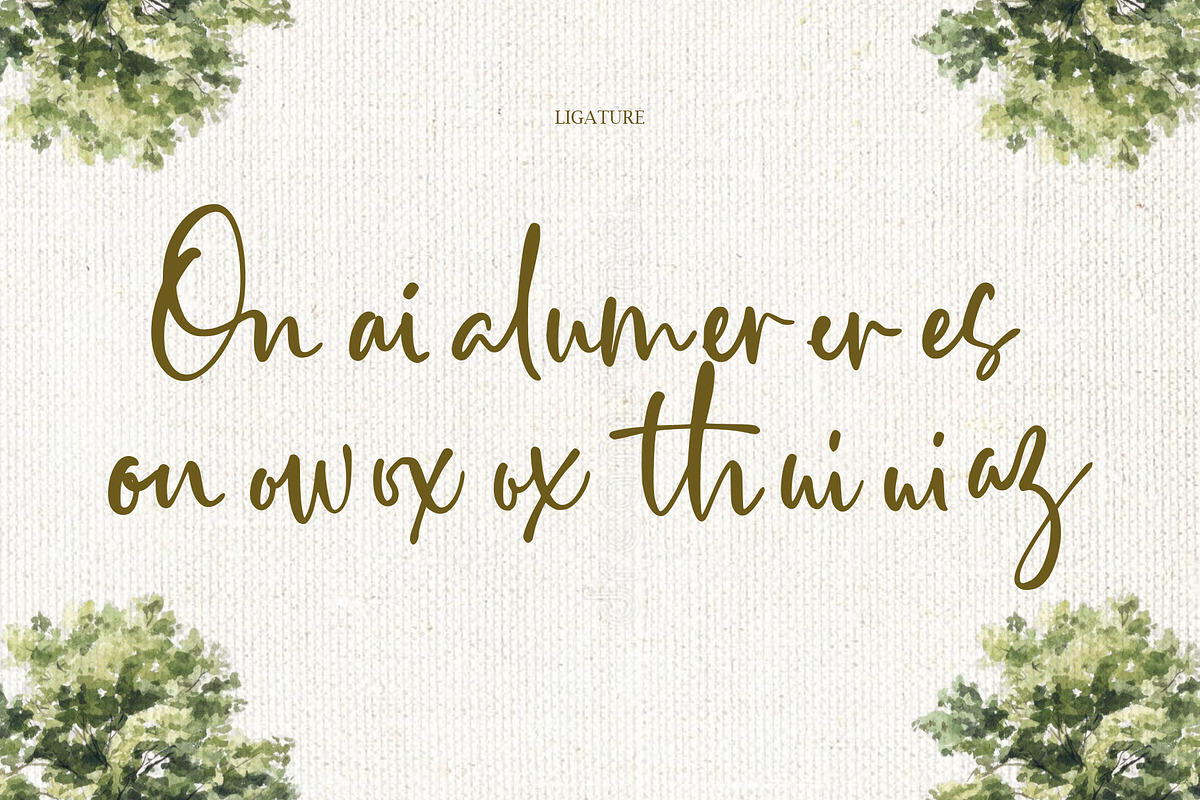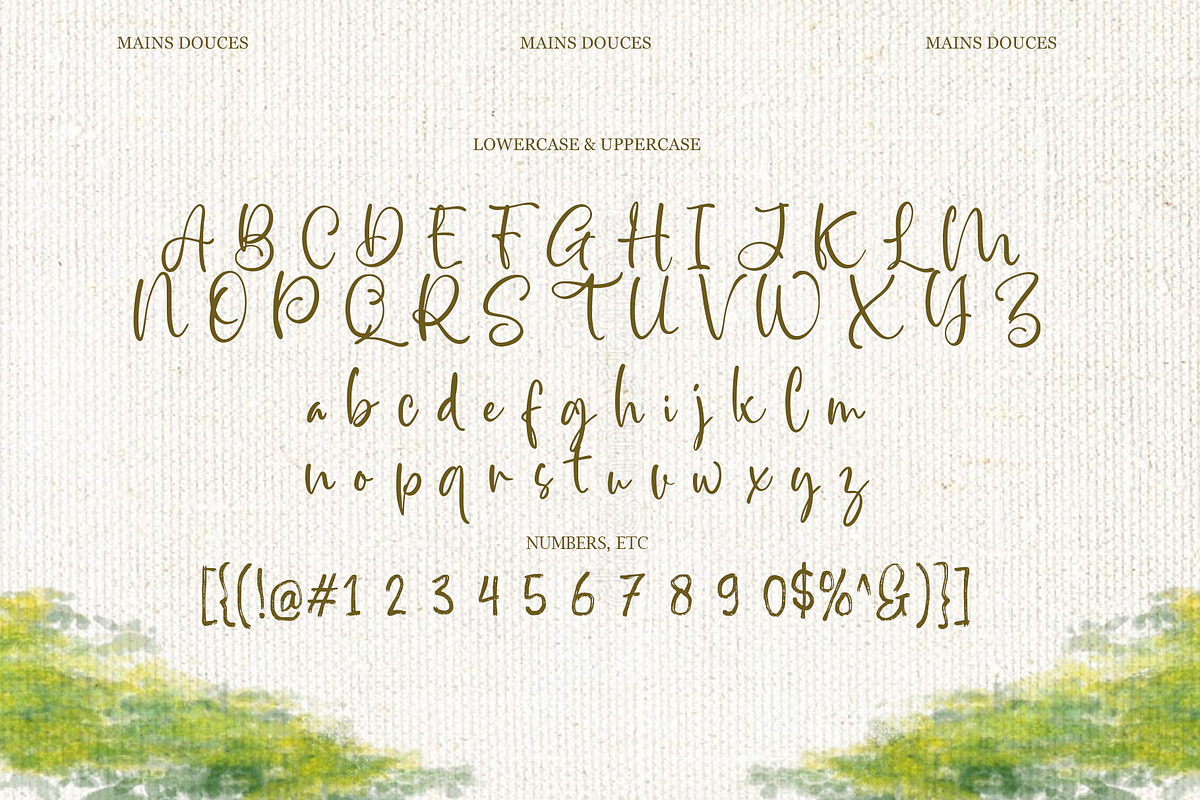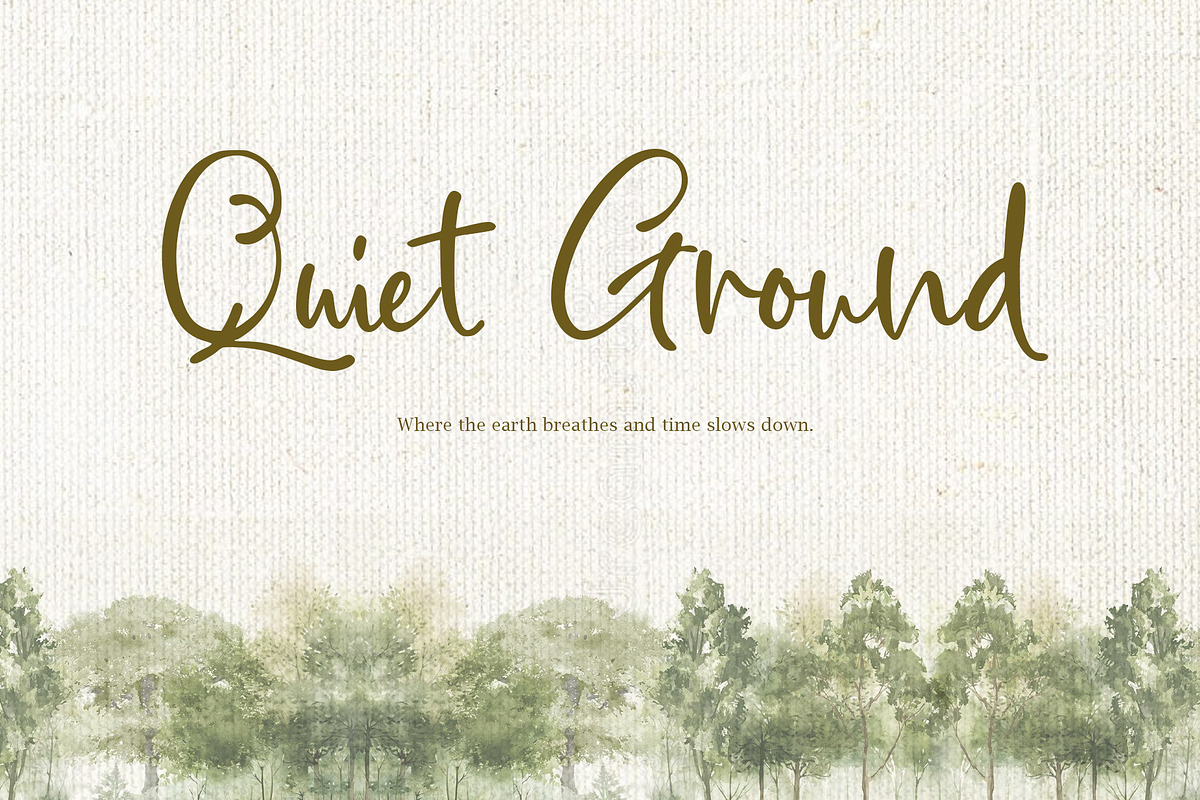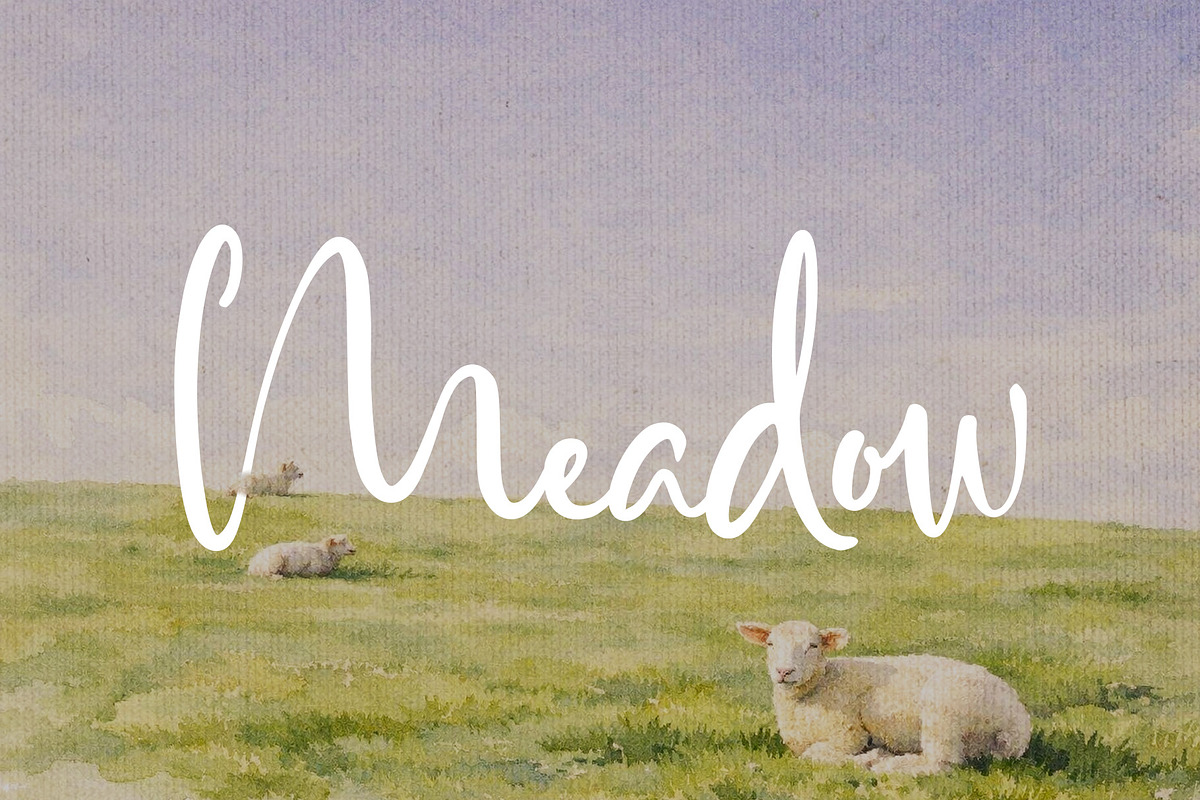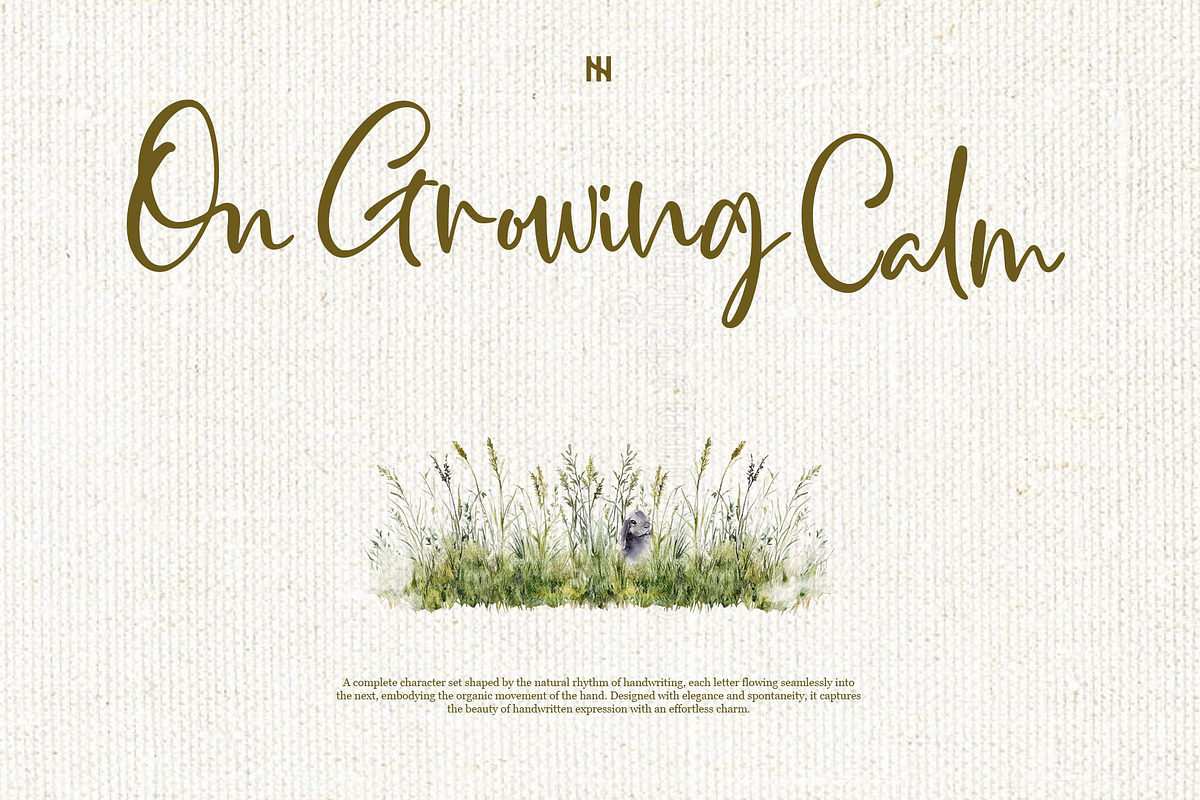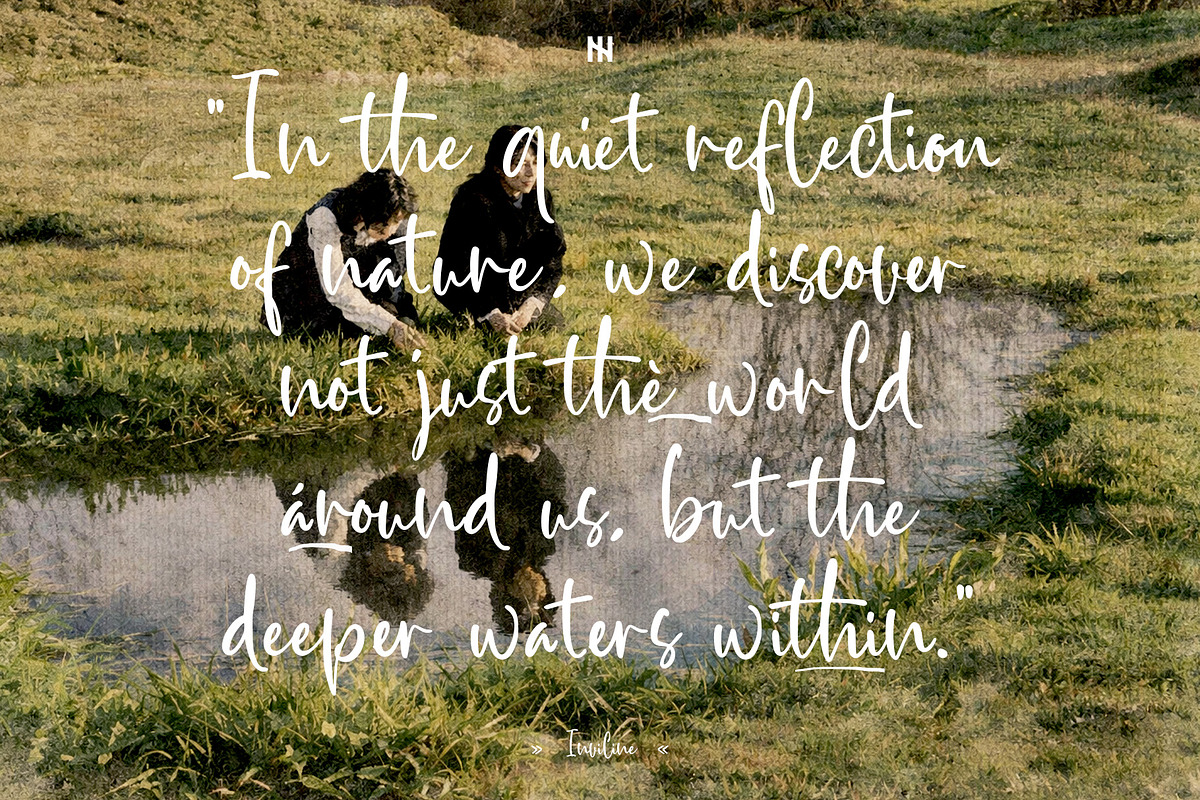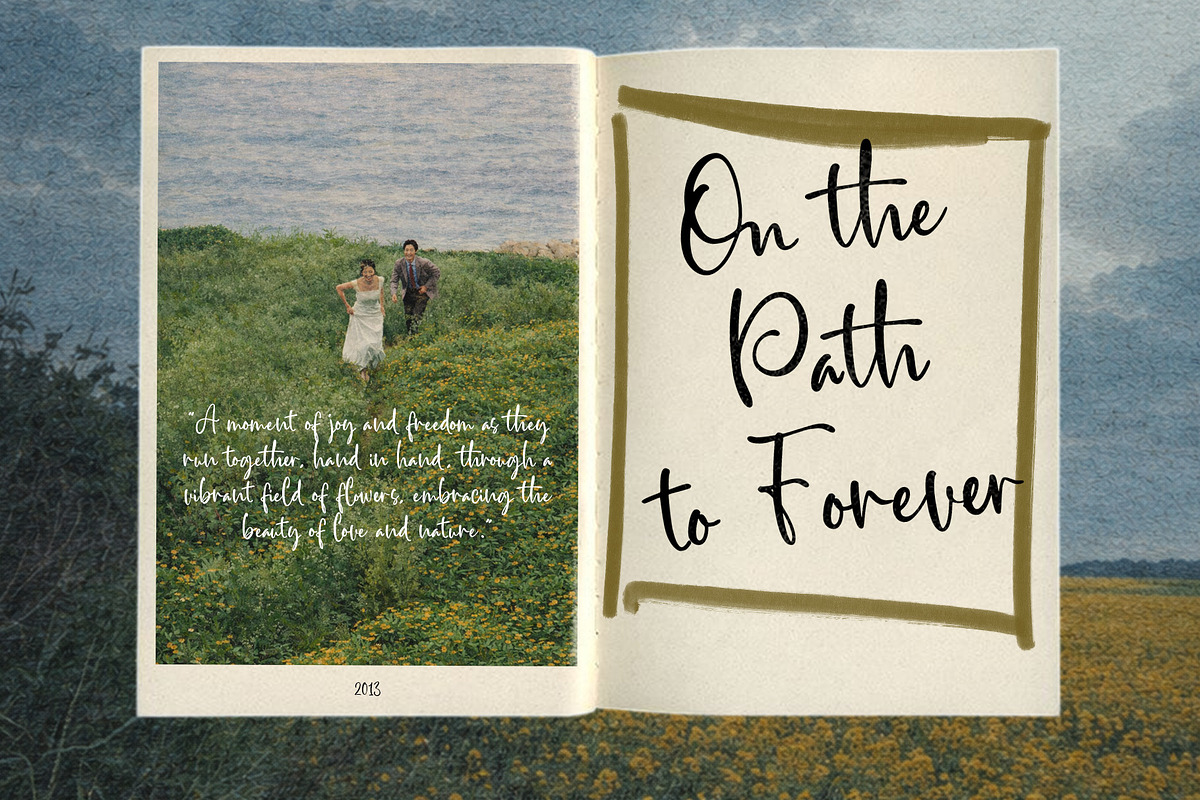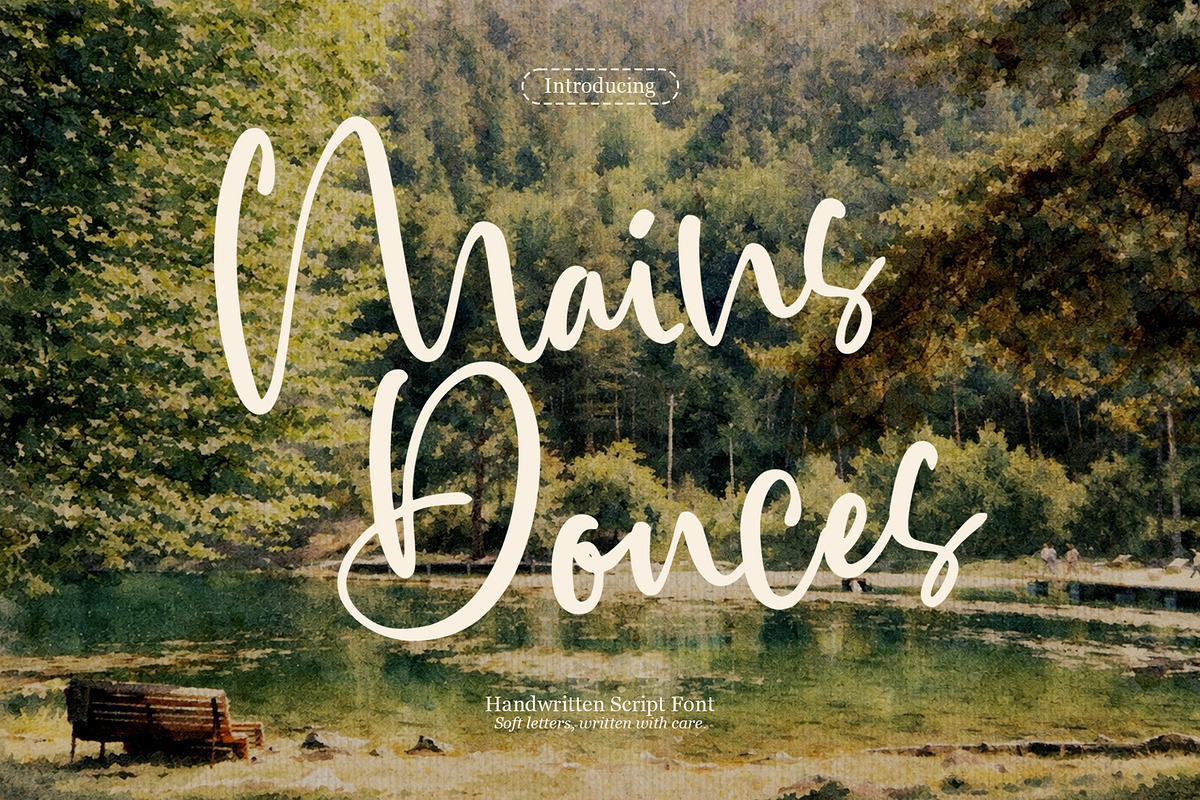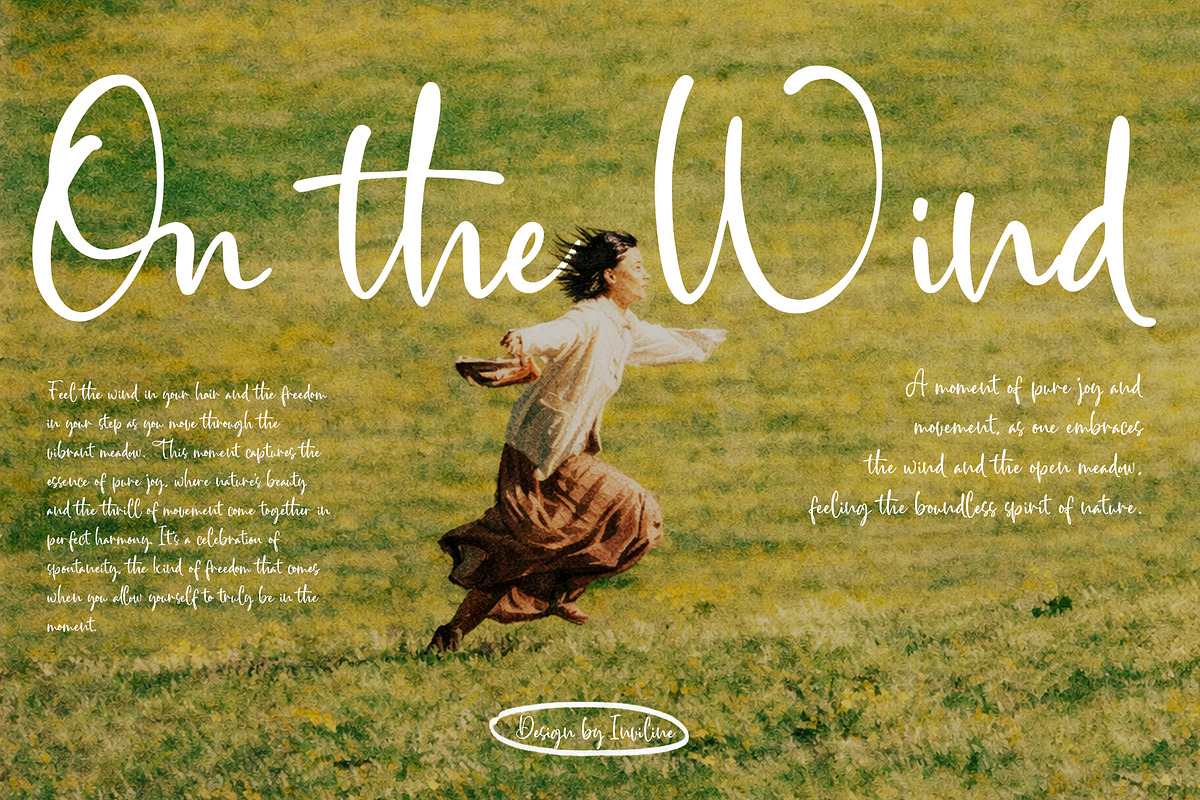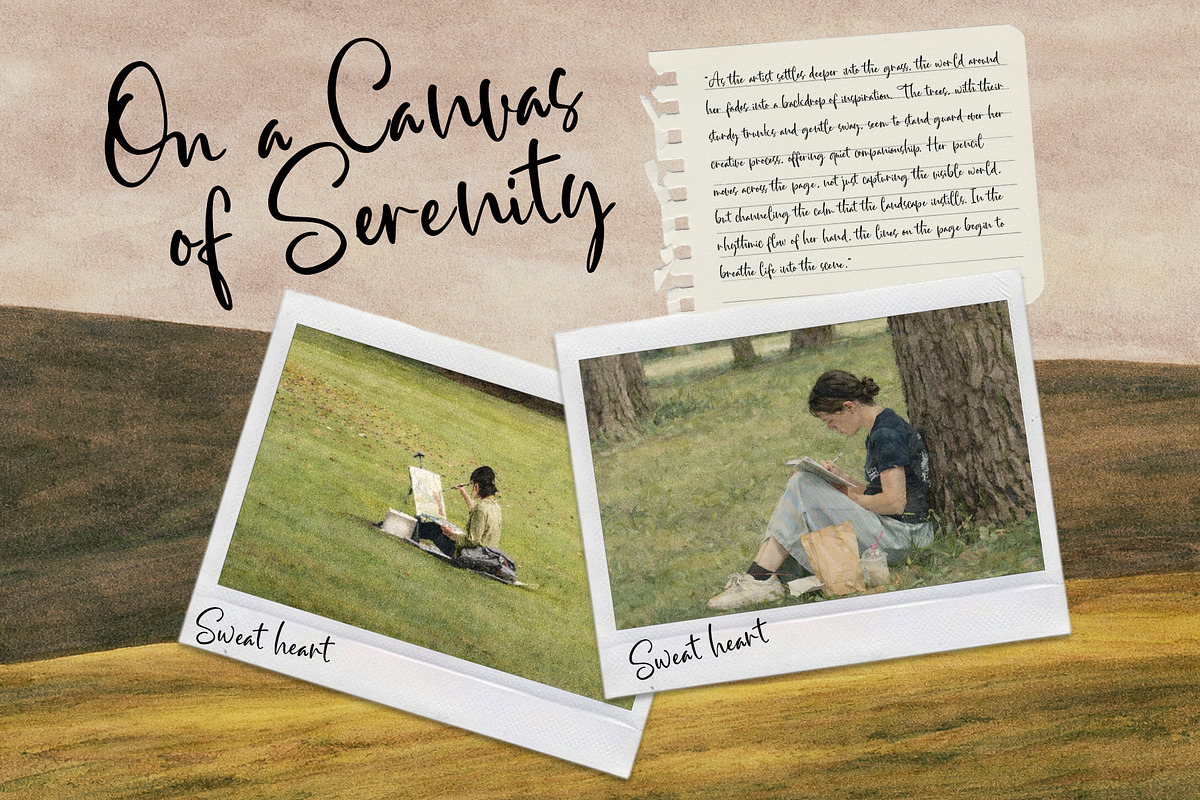
Mains Douces - Handwritten Script
Mains Douces is a soft handwritten script font inspired by quiet mornings, gentle landscapes, and words written with care. With flowing strokes, delicate curves, and a natural rhythm, it captures the warmth of personal letters and the serenity of slow moments.
Each character feels graceful and organic, balancing elegance with authenticity—never forced, never rigid. Designed to bring calm emotion and subtle charm to your typography, Mains Douces is perfect for branding, wedding stationery, editorials, packaging, quotes, and creative projects that seek softness, intimacy, and refined handwritten beauty.
Uppercase & Lowercase Characters
Numbers & Essential Punctuation
Smooth Handwritten Script Letterforms
Natural Flow & Elegant Stroke Variation